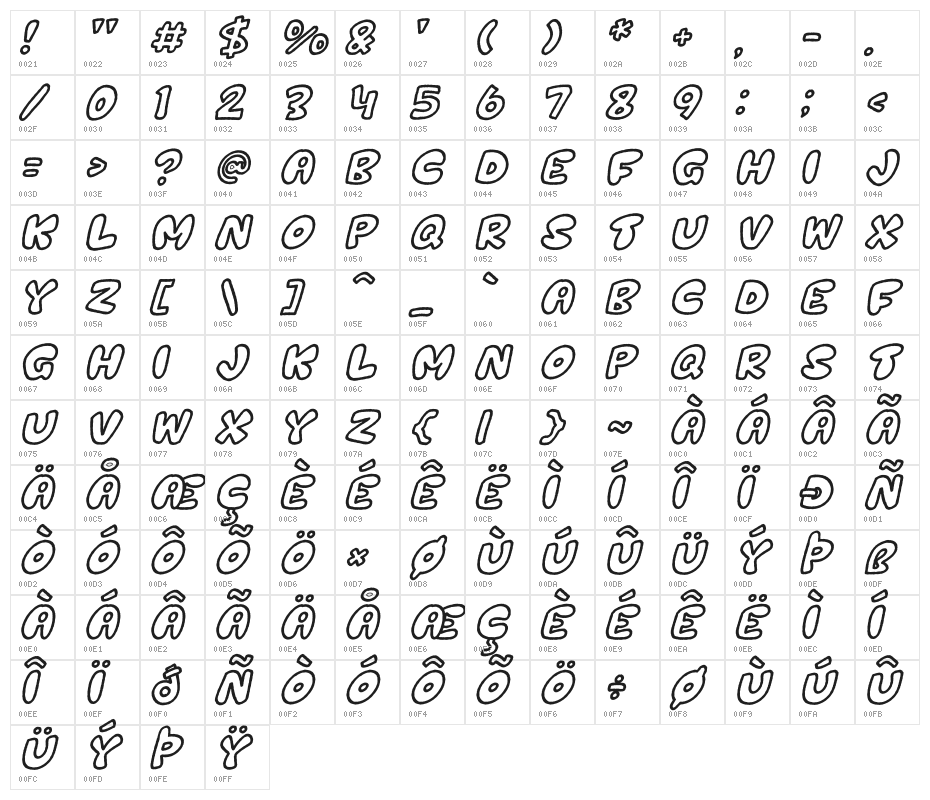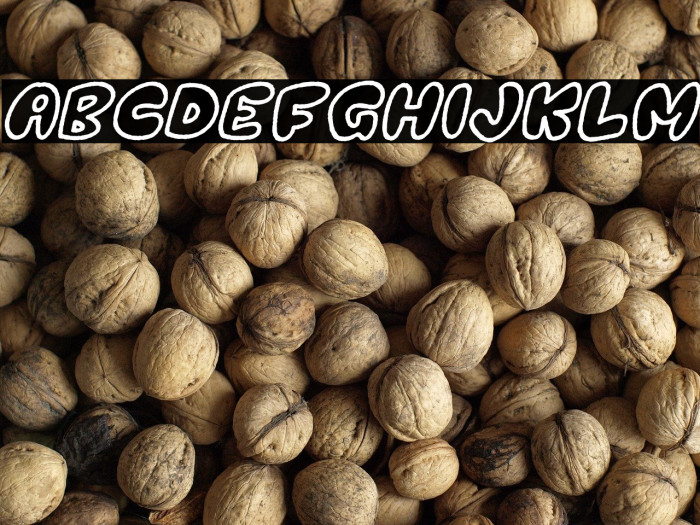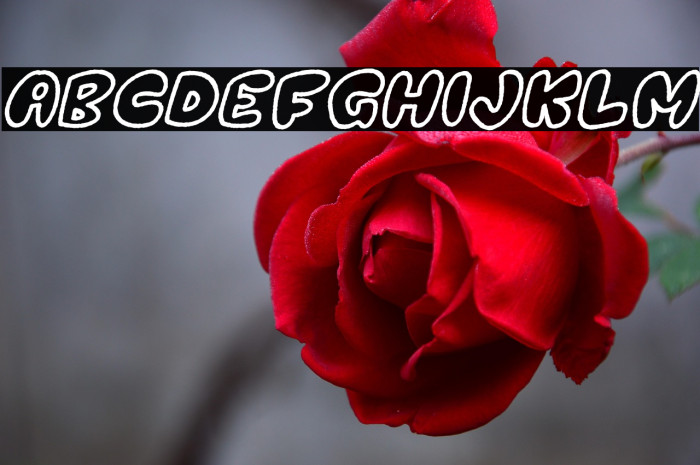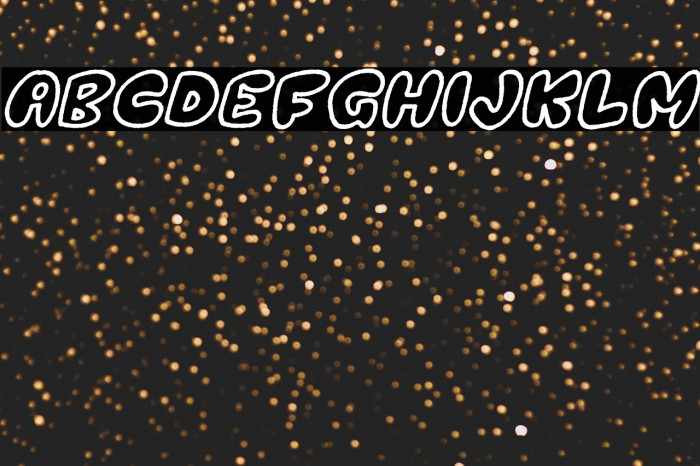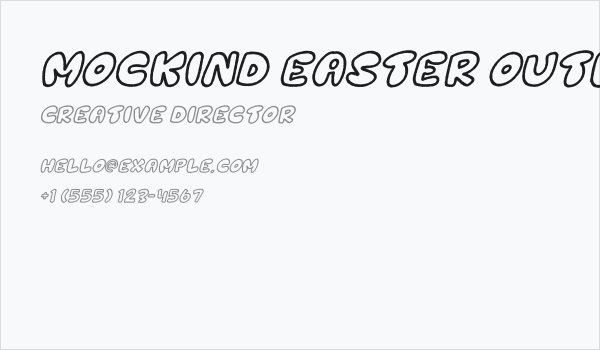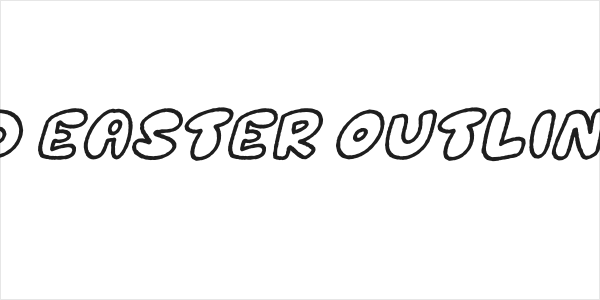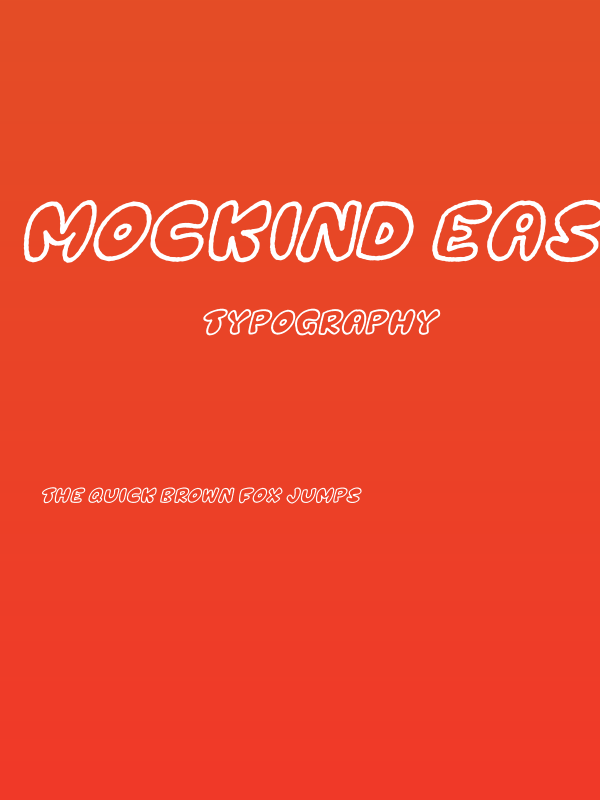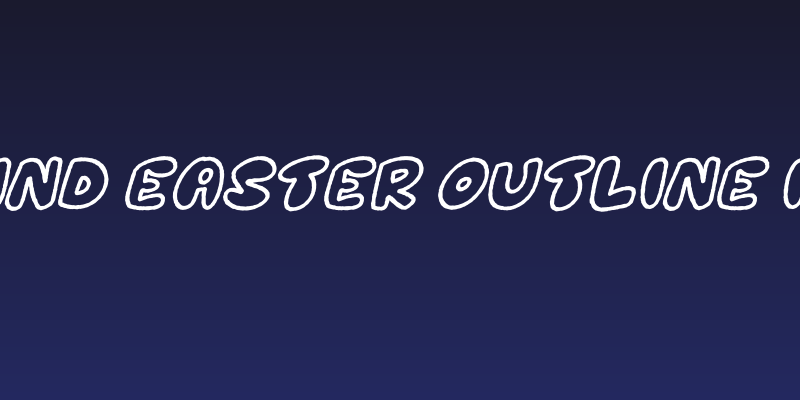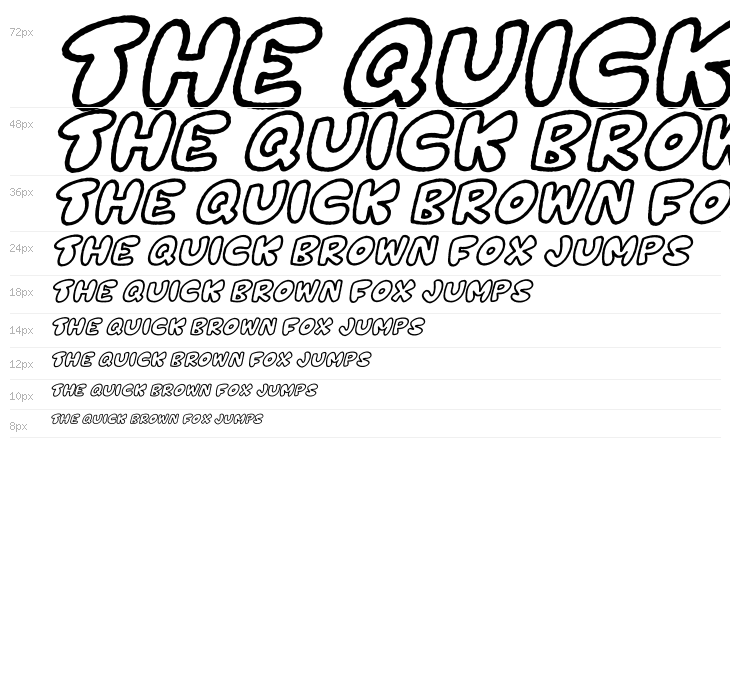
Mockind Easter Outline Italic Font
Mockind Easter Outline Italic Description
This playful and bold font features an outlined style with a slight italic slant, giving it a dynamic and energetic appearance. The characters are rounded and thick, creating a friendly and approachable look. The uppercase and lowercase letters maintain consistent proportions, while the numerals and special characters complement the overall design. The outlined nature of the font adds a layer of depth and interest, making it suitable for eye-catching designs. Its informal and whimsical style makes it perfect for projects that require a fun and engaging visual element.
| Proposed Projects | Ideal for children's books, playful branding, party invitations, and casual posters. |